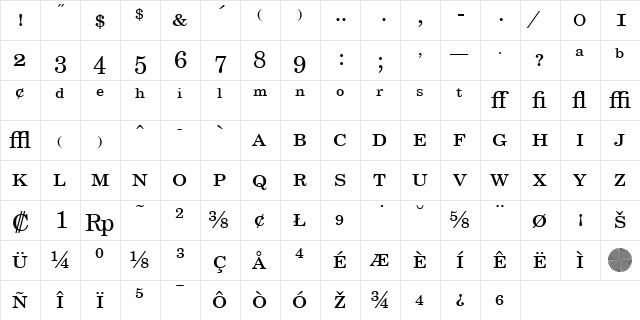
NewMilleniumSchlbkExpt SH
Design Context for NewMilleniumSchlbkExpt Typeface
NewMilleniumSchlbkExpt takes a measured approach to typography — its balanced proportions and neutral character make it a reliable workhorse for both digital and print work.